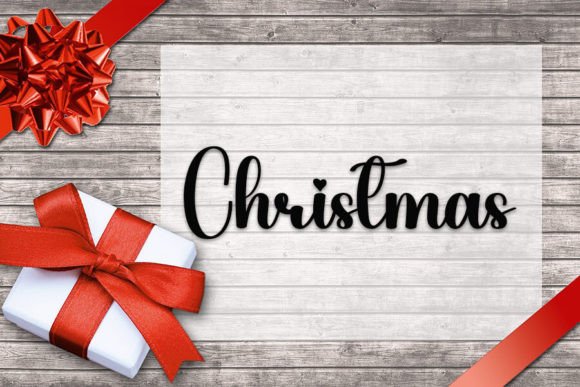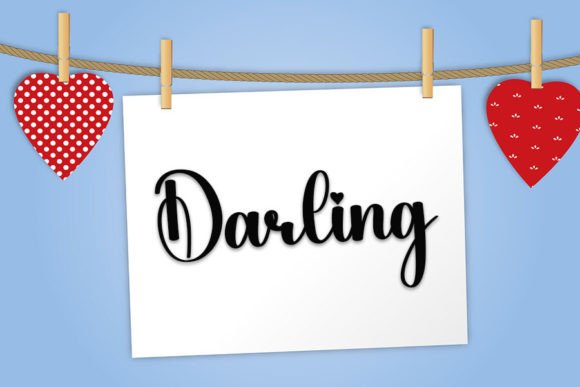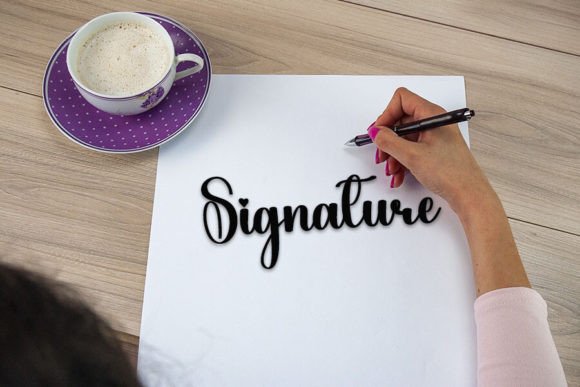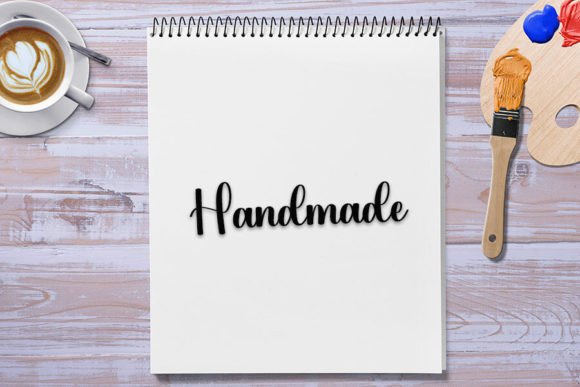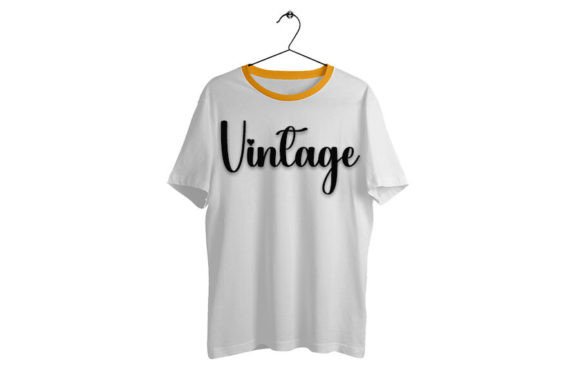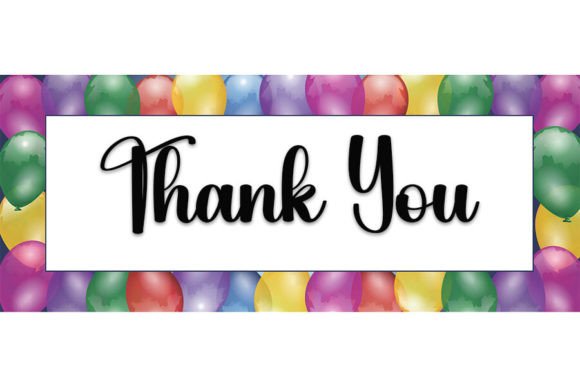
The Charm of Bowling Font: A Designer’s New Best Friend
I’ll never forget the time I was working on a project for a client who wanted a simple, yet elegant font to convey a sense of warmth and approachability. I scoured the internet, tried out countless fonts, but nothing seemed quite right. That was until I stumbled upon Bowling Font. This beautiful, handwritten font has been a game-changer for me, and I’m excited to share its charm with you. 🎉
I’ve had the pleasure of working with Bowling Font on several projects, and here’s what I think:
• ✨ It’s incredibly versatile, making it perfect for a wide range of applications, from greeting cards to headlines.
• ✅ The handwritten feel is simple, yet elegant, adding a touch of warmth to any project.
• ✅ It’s highly legible, even at smaller font sizes.
Of course, no font is perfect, and Bowling Font does have a few quirks:
• 🤔 Some users might find the font a tad too simplistic for certain projects.
• ⚠️ It may not be the best choice for body text, as it’s better suited for headlines and titles.
The Story Behind Bowling Font
While the true story behind Bowling Font remains a mystery, it’s easy to imagine that it was created with the intention of bringing a sense of simplicity and elegance to the world of typography. Perhaps the designer, inspired by the classic feel of handwritten fonts, set out to create a font that would be both versatile and beautiful.
Font Name Bowling Font
Author putrasyahreza00
What is Bowling Font best suited for? Bowling Font is perfect for projects that require a simple, yet elegant font, such as greeting cards, headlines, and titles.
Is Bowling Font suitable for body text? While Bowling Font is highly legible, it’s better suited for headlines and titles. For body text, a more traditional font might be a better choice.
Does Bowling Font come with OpenType features? Yes, Bowling Font comes with OpenType features, including glyphs and stylistic alternates, which can be accessed in compatible design software.